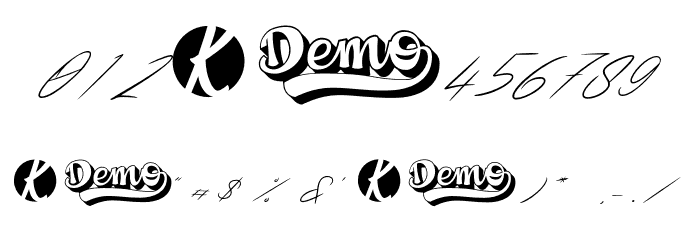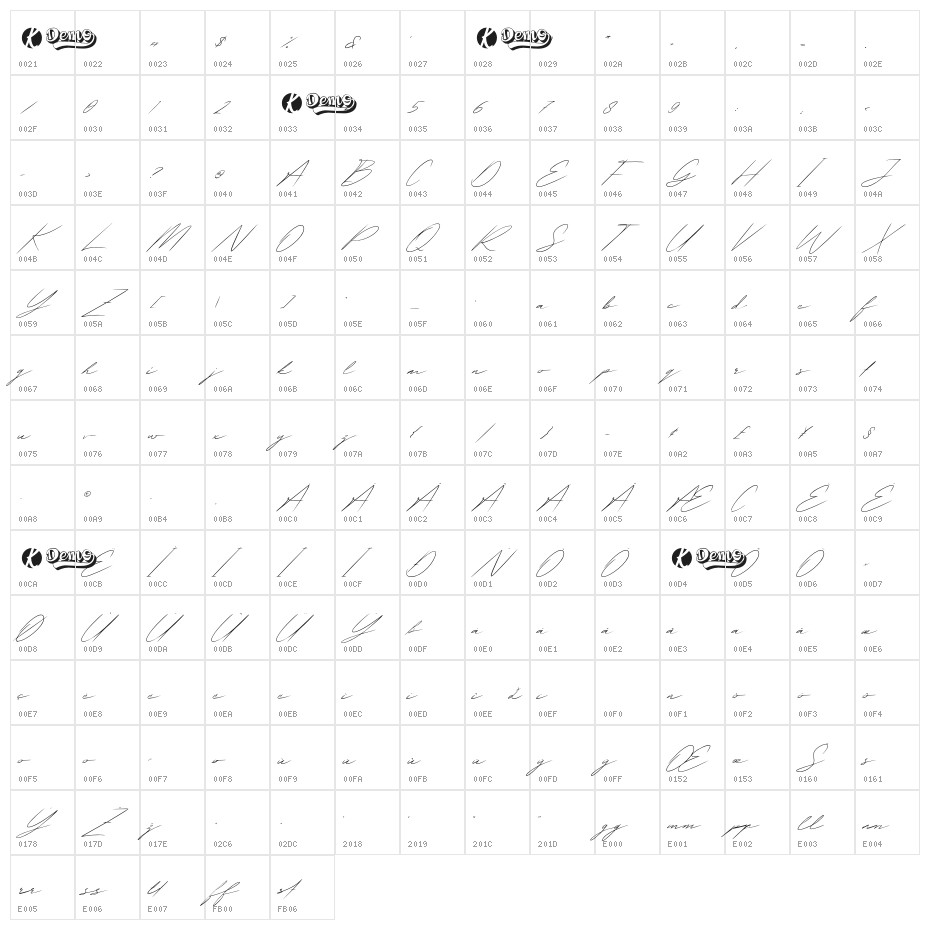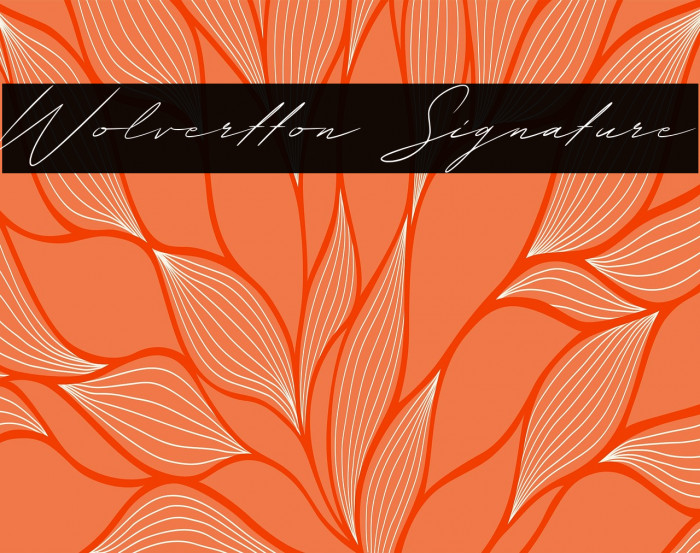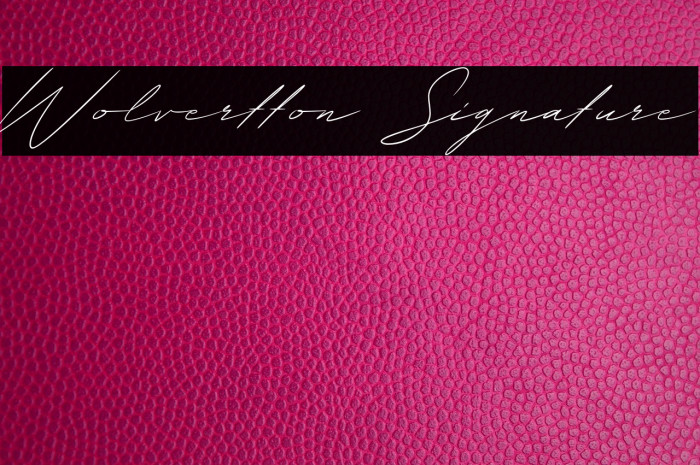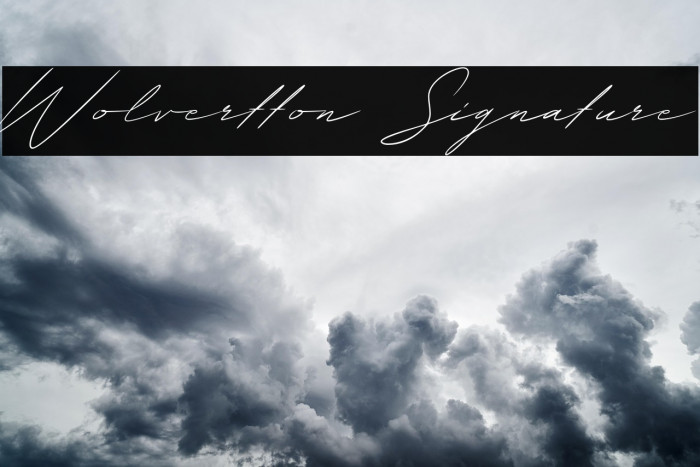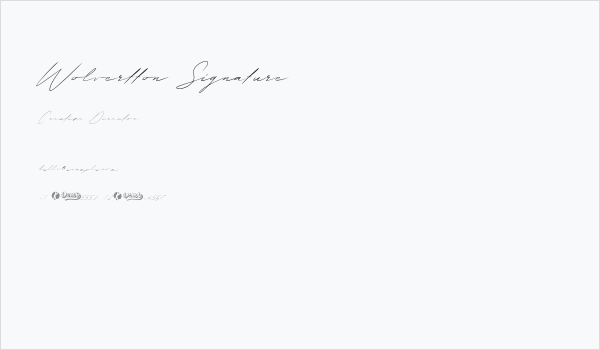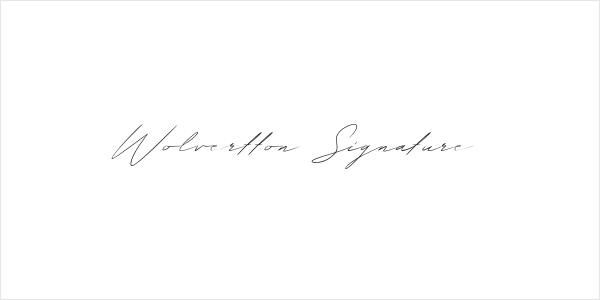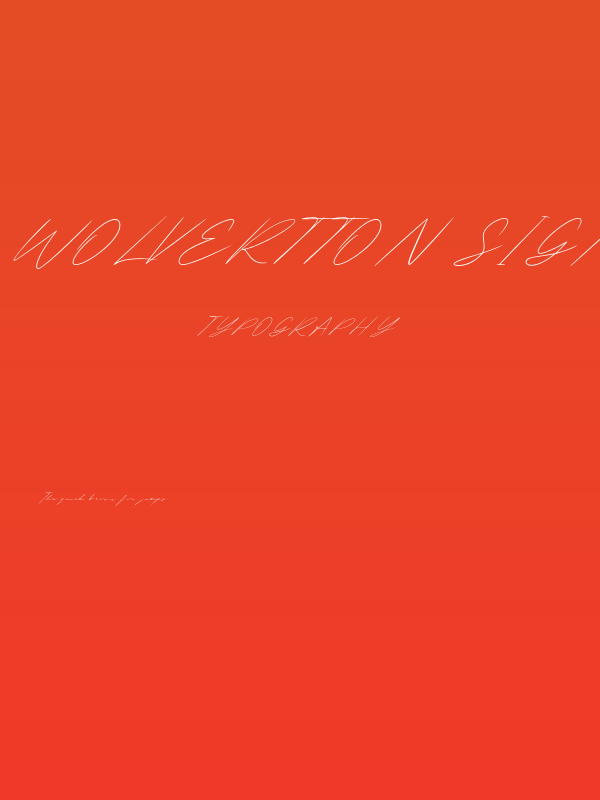
Wolvertton Signature Font
Wolvertton Signature Description
This elegant script font features a flowing, cursive style with a modern touch. The uppercase letters are tall and slender, with graceful loops and curves that give a sense of fluidity and movement. The lowercase letters maintain a consistent slant, enhancing the handwritten feel. The numbers are distinct and stylish, complementing the overall aesthetic. Special characters are integrated seamlessly, maintaining the font's sophisticated appearance. This font exudes a sense of elegance and refinement, making it suitable for formal and creative applications.